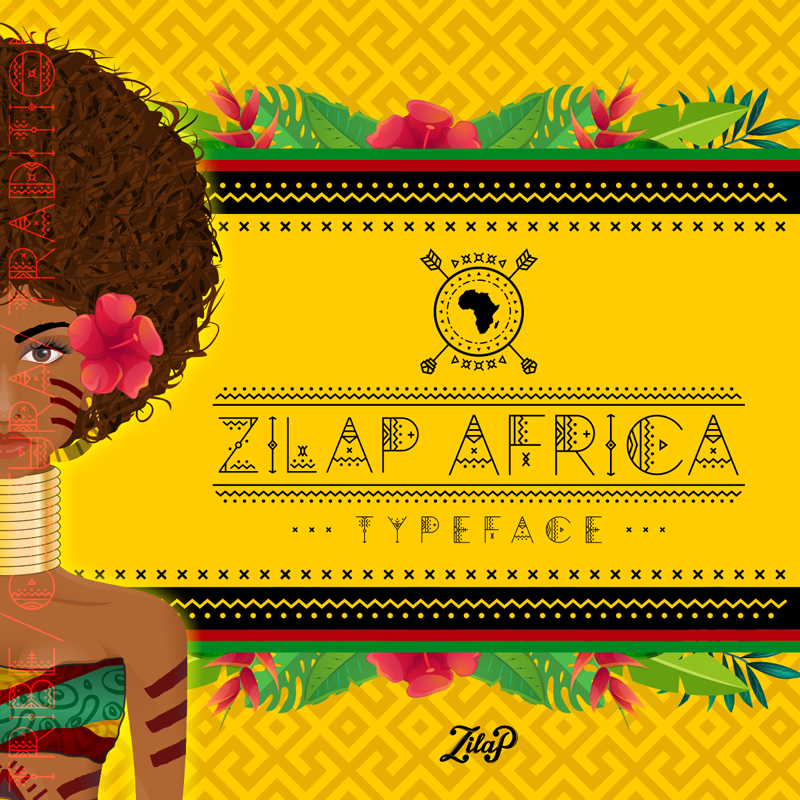
Zilap Africa: Born from the cultures of this beautiful continent, it represents the spaces, people and customs of villages, towns and tribes, in each of their letters and geometrically designed paths. It is an ideal source for enriching illustrations, compositions, Tribal art, Urban or modern art, its visual and conceptual richness design allows it to be a great complement in the design of advertising pieces focused on culture or music and can even be worked on identities of brand, it all depends on the creativity of the designer or artist who intends to use said source. Zilap Africa "The culture of a continent, represented in a source” Inspired and designed by Zilap Studio Assembly and foundry by LJ Design Studios Por completo el acceso y el uso comercial de la fuente - https://www.ljdesignstudios.com/fonts/zilap-africa/ - contacto - zilapestudio@gmail.com Sígueme Facebook - https://www.facebook.com/zilap.estudio/?ref=bookmarks Behance - https://www.behance.net/juanchonavarrozilap Instagram - https://www.instagram.com/mr.zilap/ |